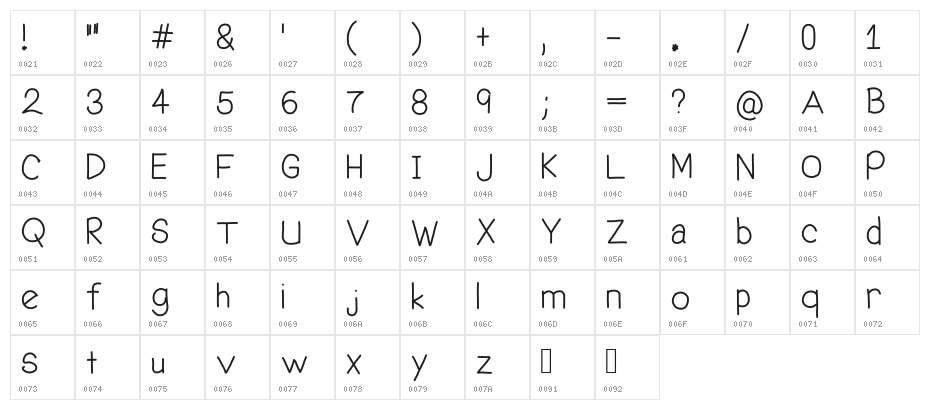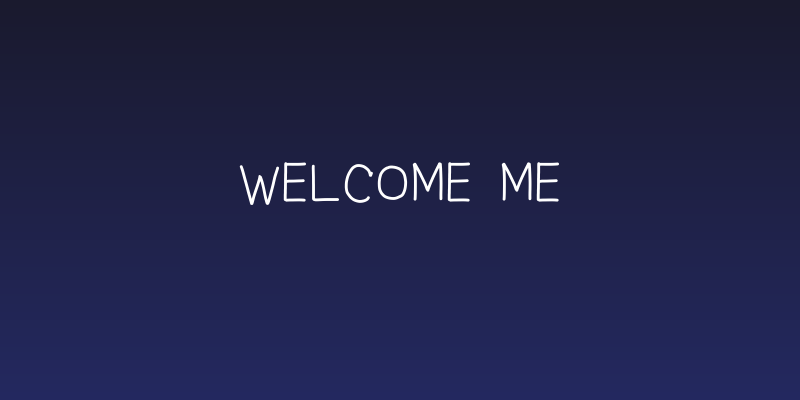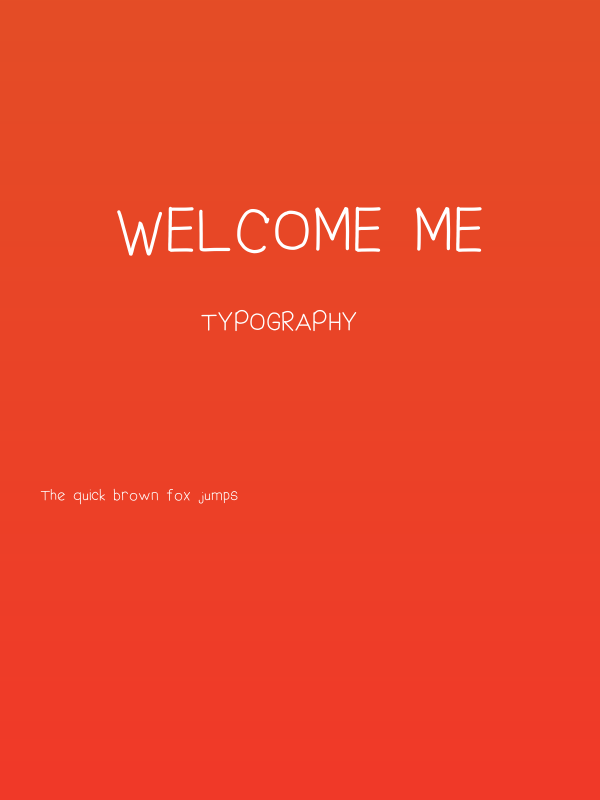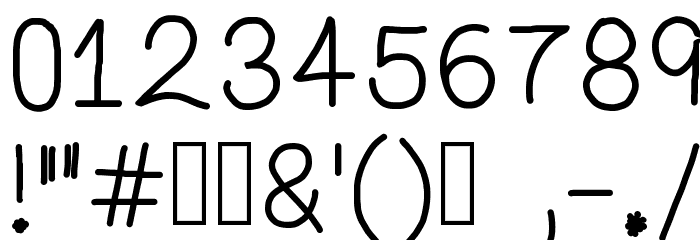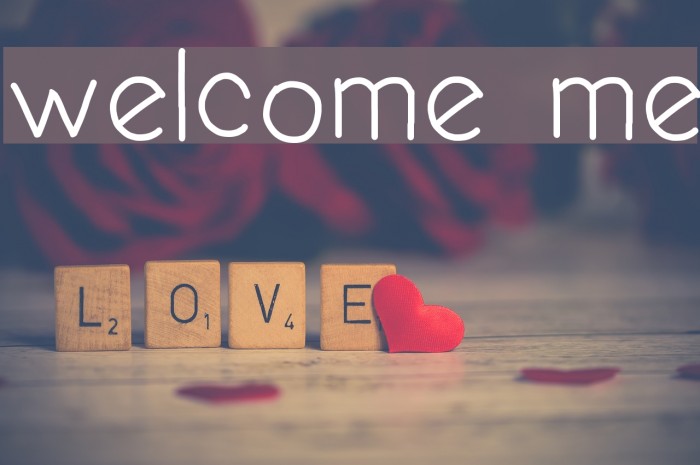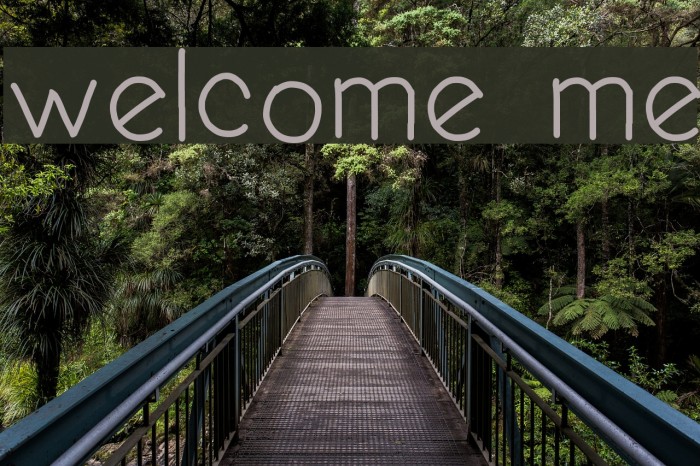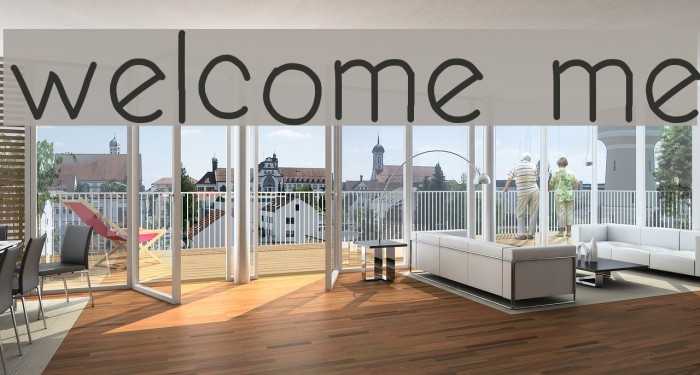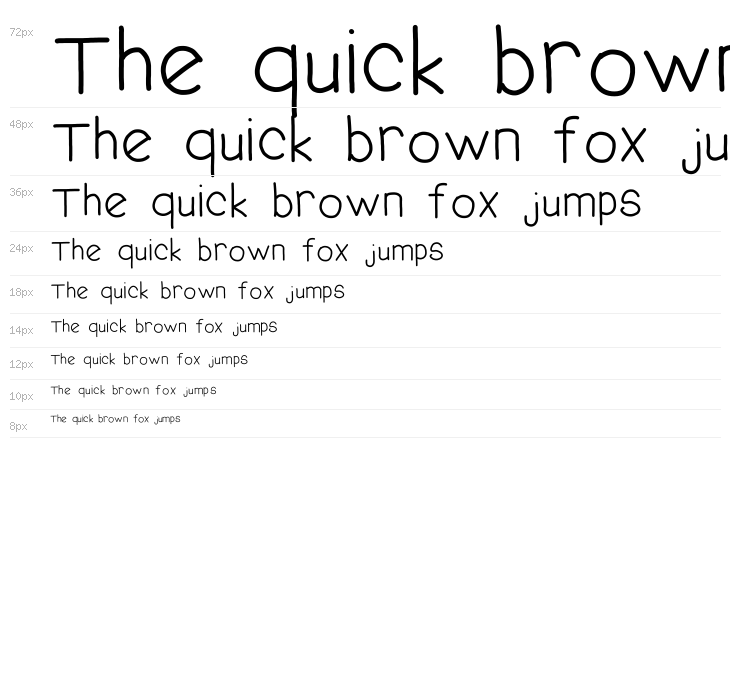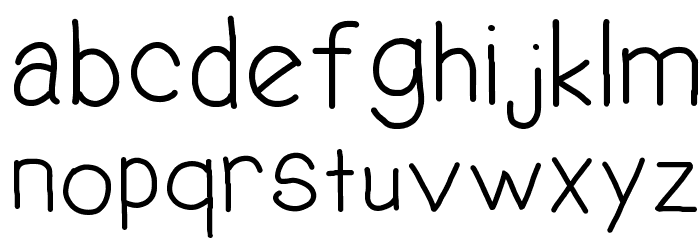
welcome me Font
welcome me Description
This font features a playful and casual handwritten style, characterized by its rounded and slightly irregular letterforms. The uppercase and lowercase letters maintain a consistent flow, with a slight tilt that adds to its informal charm. The numerals and special characters are designed to match the overall aesthetic, ensuring a cohesive look across all text elements. The font's simplicity and readability make it suitable for a variety of creative projects, where a friendly and approachable tone is desired.
| Proposed Projects | Ideal for greeting cards, children's books, casual branding, and social media graphics. |